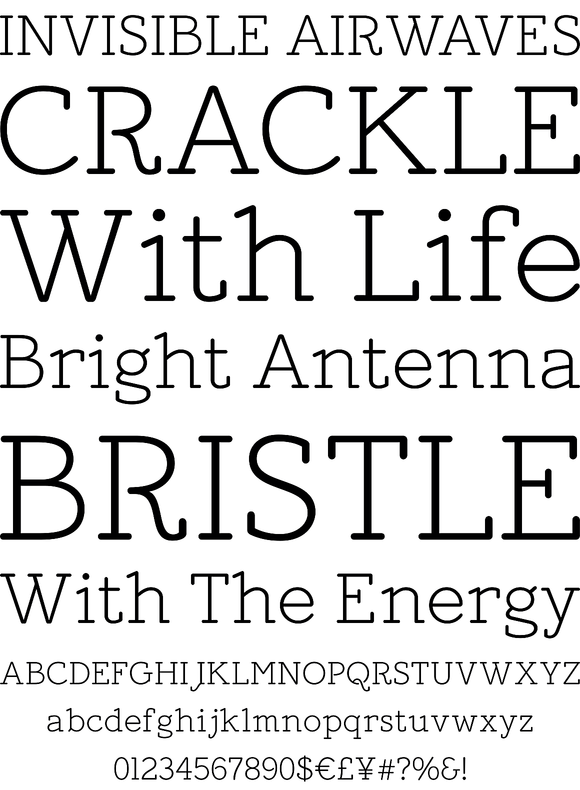
Mymra Forte
Foundry: TipografiaRamis
Mymra Forte is counterpart family to Mymra Piano by TipografiaRamis. Like Piano, Forte is also a monoline serif face inspired by Charles Robinson. However, in Forte, the terminals and serifs are simplified and straightened to convey a more rigid presence. Although ideally suited for display use, Forte could also be used in short text especially in Light and Regular weights. Mymra Forte is presented in six styles: Light, Regular and Bold weights with upright and slanted upright respectably.